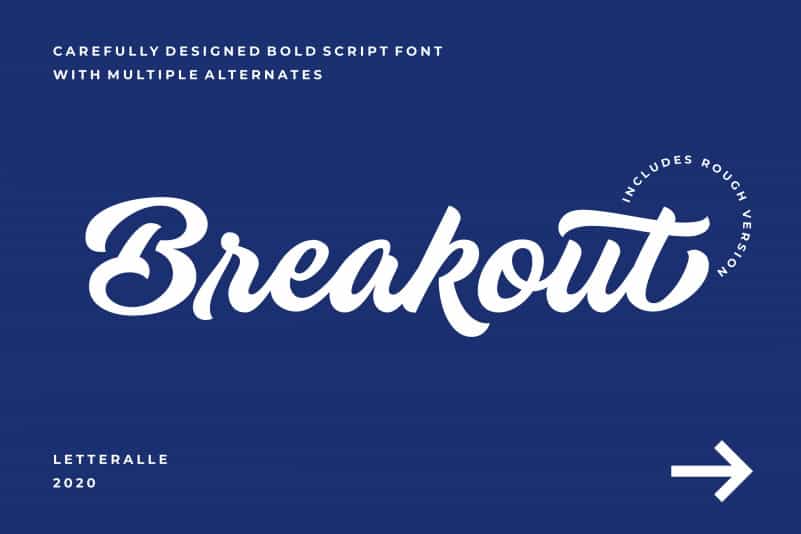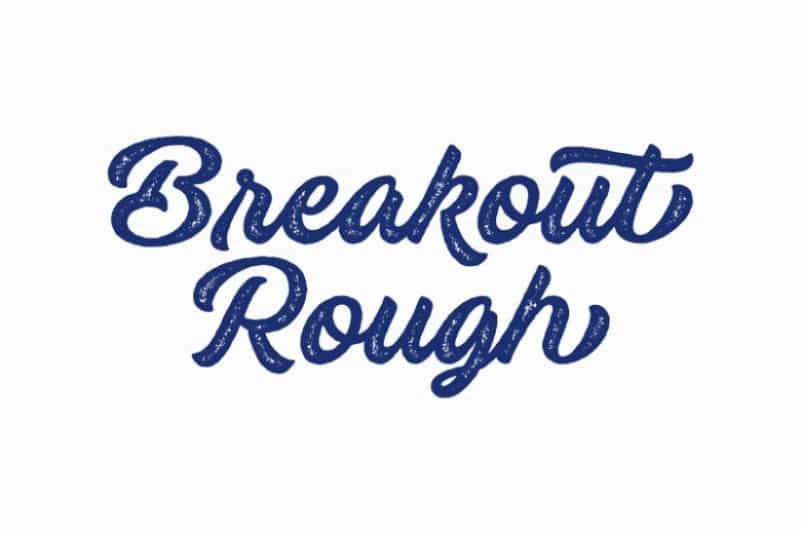
Breakout is a font which was created by the special hand-lettering technique. Breakout is made in two styles; Regular and Rough. Breakout has many alternative of each letter to make it look unique and appealing.